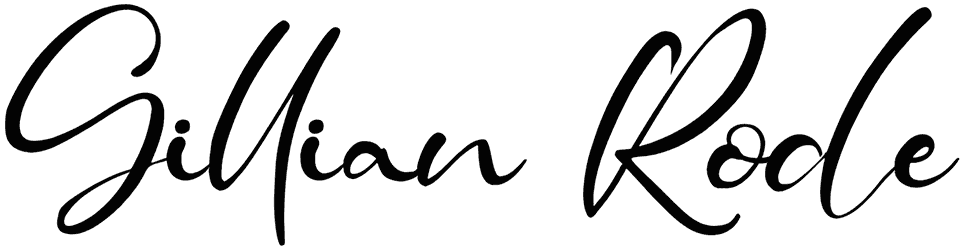
Gillian Rode Font
The Gillian Rode font is a script font that impacts your audience with its elegant style. This eye-catching font seems attractive to the viewers as it has a playful design. You may use the Gillian Rode font for several cases, such as posters, branding projects, and fashion magazines.
Moreover, its letters have a semi-curvy shape that looks like handwritten fonts, and their soft edges create a lovely personality. So do not hesitate to download this awesome font.